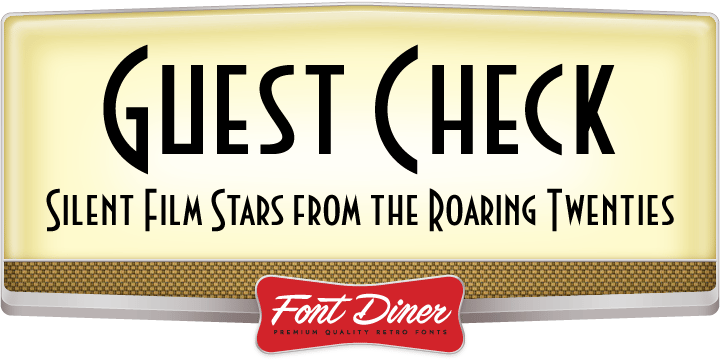
HomeFont BrosArt Deco (1910-1935)Guest Check Art Deco (1910-1935)Sans SerifRetro (1936-1965) Guest Check FacebookXPinterestWhatsApp 1 of 1 About Guest Check The management kindly requests your departure with the arrival of your Guest Check! This fine Art Deco inspired font came from, you guessed it, a Guest Check!  DOWNLOAD NOW People also explored Alisson Script Font Beautiful Calligraphy Font Kebroon Font Pinhead Font Sherly Pung Font Raffline Script Font Battara Script Font Daily Story Font Ace Joker Font 502 0 TagsGuest Check Font Previous articleSalve RegularNext articleLas Vegas to Rome LEAVE A REPLY Cancel reply Comment: Please enter your comment! Name:* Please enter your name here Email:* You have entered an incorrect email address! Please enter your email address here Website: Save my name, email, and website in this browser for the next time I comment. Personal Use Free Bollado Personal Use Free Read more about this font Unicorn Kids Personal Use Free Read more about this font Bosk Personal Use Free Read more about this font Shrag Script Personal Use Free Read more about this font BLOG How to Cut Any Font on Cricut: Convert a Font to SVG (Free) Turn any font into a clean SVG so it cuts crisp on Cricut - a quick 3-step workflow using a free font-to-SVG tool. How to Install and Use Fonts on Windows, macOS, and Web Projects Transform Your Website: Elevate Your Typography with 7 Best Web Font Generators Best Fonts for YouTube Videos: Make Your Thumbnails Stand Out